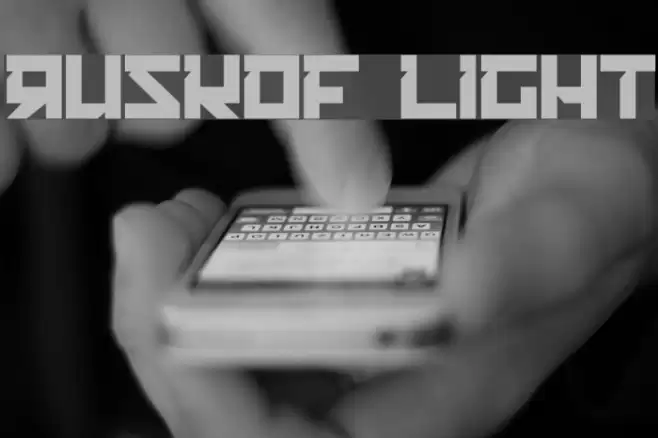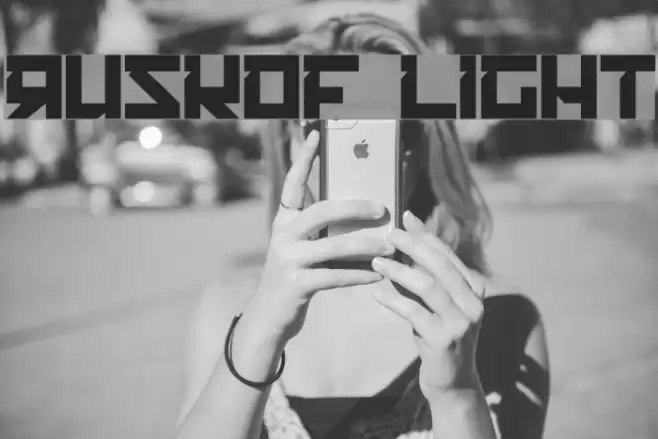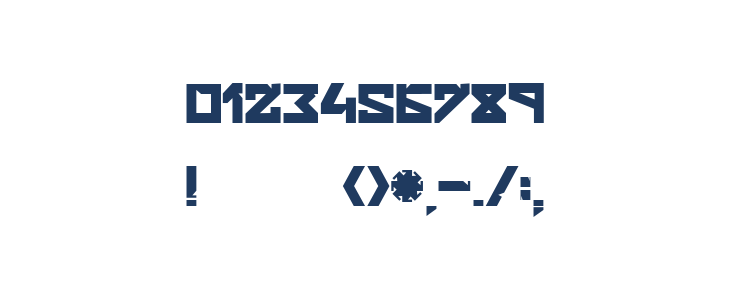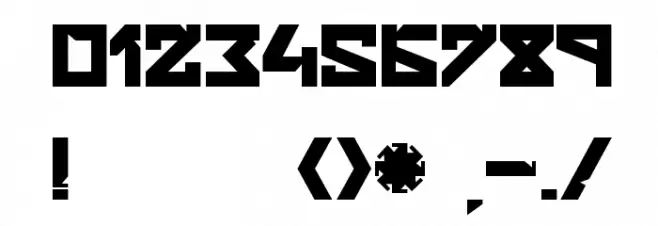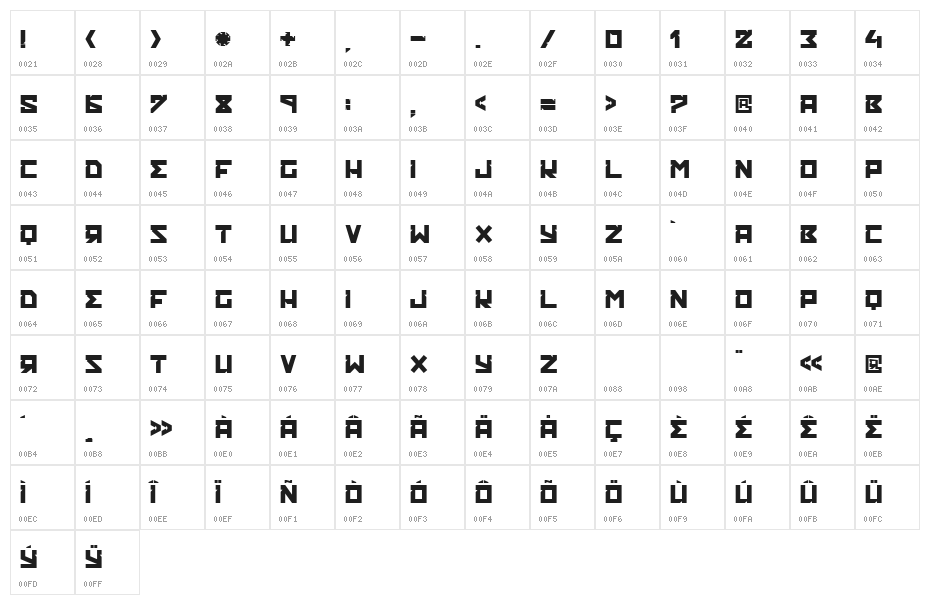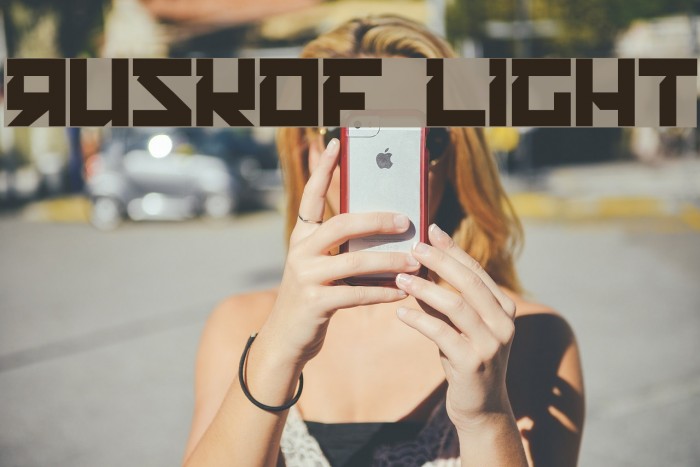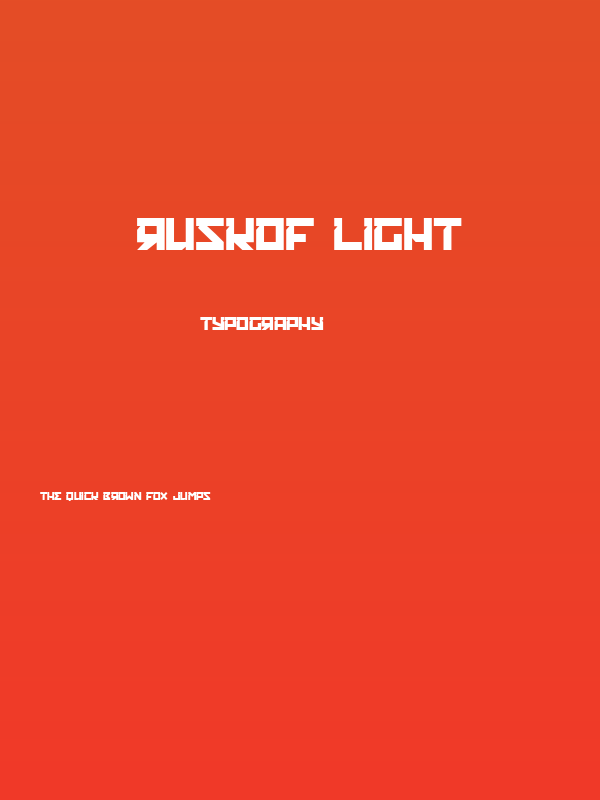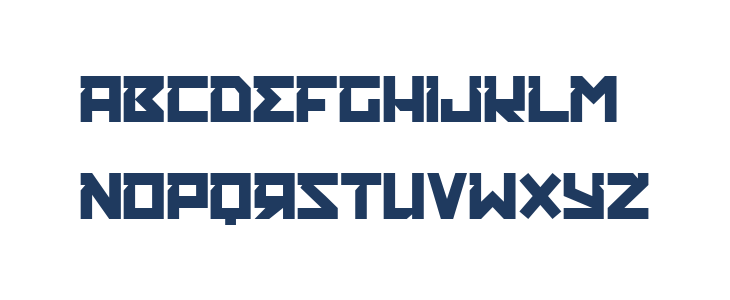
RUSKOF LIGHT Font
RUSKOF LIGHT Description
This font features a bold, geometric design with sharp angles and a futuristic aesthetic. The uppercase letters are uniform in height, with distinct angular cuts that give them a dynamic and edgy appearance. The numbers and special characters maintain this angular style, creating a cohesive look across all glyphs. The font's unique style makes it stand out, with each character having a strong presence. The overall design is reminiscent of digital or sci-fi themes, making it ideal for projects that require a modern and bold statement.
A bold, geometric font with sharp angles and a futuristic style from Uncategorized fonts.
- Proposed Projects: Ideal for sci-fi themed projects, video game titles, tech branding, and futuristic posters.
- Overall Style: Futuristic, Modern